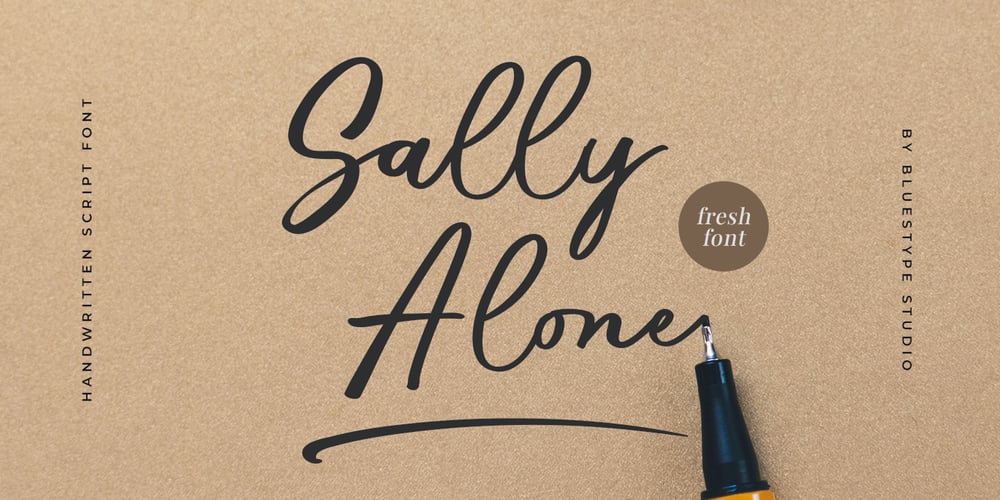
Sally Alone Font Family was designed by Jefri Dwi Alfatah and published by Bluestype Studio. Sally Alone contains 1 styles and family package options. Hello !This is our newest product called Sally Alone. Sally Alone is an incredibly stunning script that will turn any design idea into a true stand out!This font is perfect for use on branding, business cards, weddings, t-shirt designs, logos, magazines, quotes, fashion, watermarks, invitations, social media post.